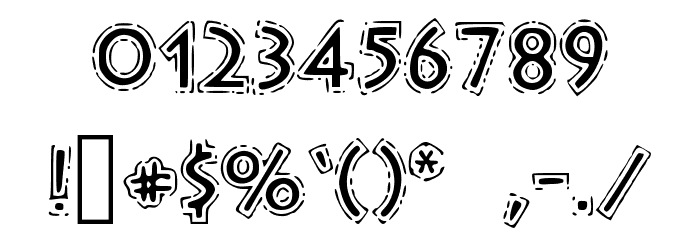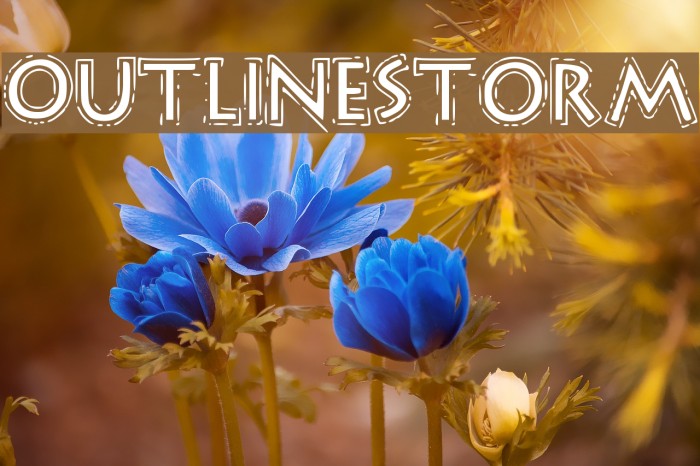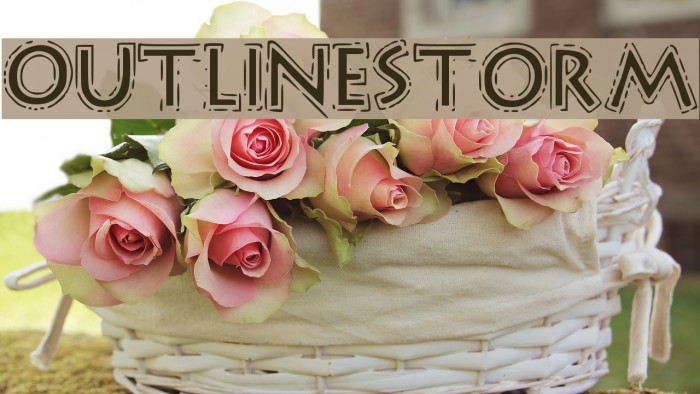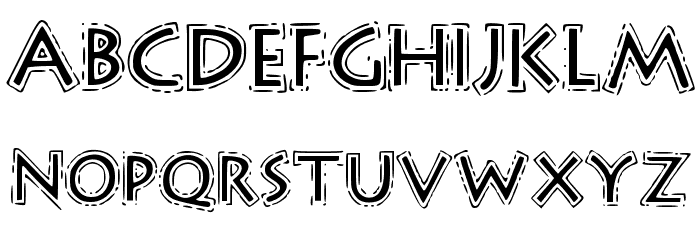
OutlineStorm Font
This font features a bold, dynamic outline style that gives each character a striking and energetic appearance. The letters are uppercase and lowercase with a consistent outline that adds depth and dimension. The numbers and special characters maintain the same bold outline, ensuring a cohesive look across all elements. The font's design is playful yet structured, making it suitable for projects that require a standout, eye-catching typeface. The spacing between characters is normal, allowing for readability while maintaining its decorative appeal.
A bold, outlined font with a dynamic and energetic style.
• Proposed Projects: Ideal for posters, headlines, logos, and any design needing a bold, standout typeface.
• Category: Decorative/Display
• Bold: Yes
• Italic: No
• Weight: Bold
• Width: Normal
• Character Spacing: Normal
• Contrast: High
• Overall Style: Modern
• Use Case: Headlines, Logos, Posters